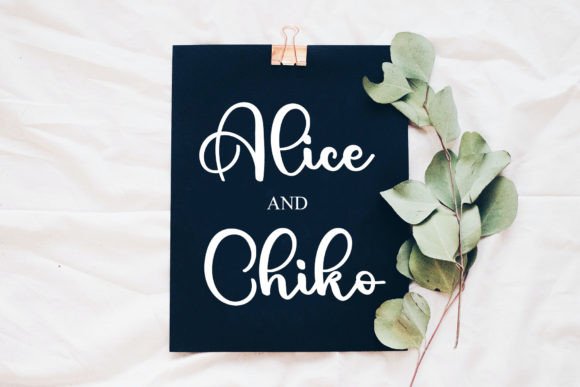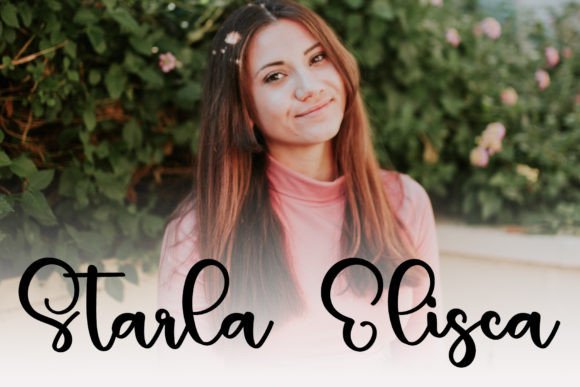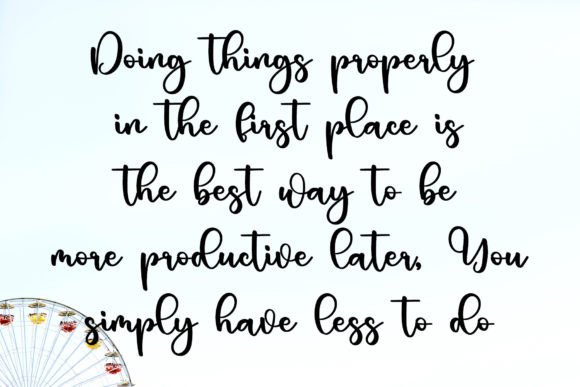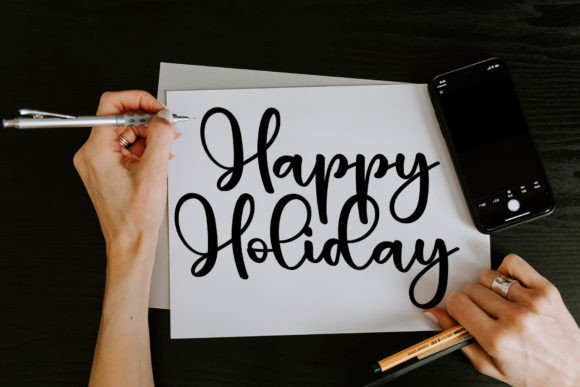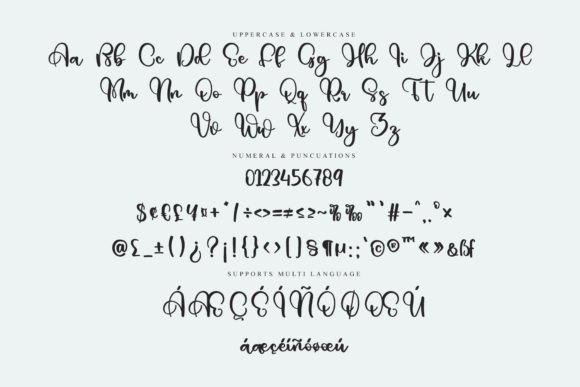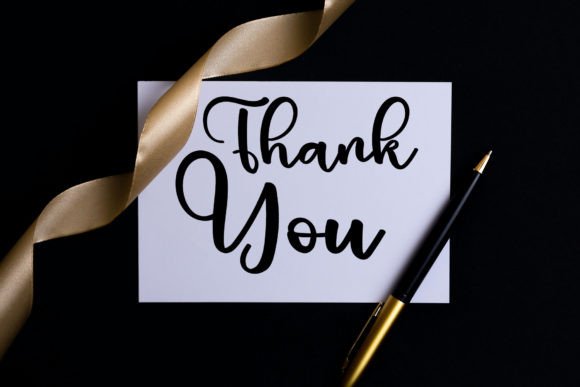
Introduction to Galentines Font
Have you ever been brainstorming a creative project, only to be stuck on the perfect font to bring your vision to life? It’s a feeling we’ve all been there, scrolling through font libraries, searching for that one special something that makes our design pop. For designers, the right font can be the difference between a good project and a great one.
Enter the Galentines Font, a modern and friendly handwritten font that’s sure to become your new go-to design resource. With its neatly crafted and highly detailed design, this font is perfect for adding a touch of personality to your creations. Whether you’re working on a project with a transparent background or need a high-quality font to elevate your design, the Galentines Font is a valuable asset to have in your library.
Key Features of Galentines Font
- High-quality design resource ideal for creative projects, including invitations, cards, and other print materials.
- Unique, hand-drawn style with a touch of femininity, perfect for Galentines Day celebrations and other female-focused events.
Honest Review: Galentines Font
As a designer, I’m always on the lookout for high-quality design resources to elevate my creative projects. The Galentines Font has been a recent addition to my toolkit, and I’m excited to share my honest review.
What works well: ✨ The Galentines Font is a beautiful, cursive script font that’s perfect for adding a touch of femininity to your designs. It’s incredibly versatile and works well for a variety of applications, from wedding invitations to social media graphics.
Limitations: ⚠️ While the Galentines Font is generally high quality, I did notice some issues with the spacing between letters. This can make it a bit tricky to use for longer blocks of text.
Overall, I’m impressed with the Galentines Font and would definitely recommend it to fellow designers. Its unique style and free download make it a valuable addition to any design resource collection.
- High-quality design suitable for various creative projects
- May require adjustments for longer blocks of text
Common Use Cases and Tips
The Galentines Font is ideal for creative projects, such as social media graphics, blog posts, and marketing materials. To get the most out of it, experiment with different font combinations, use the transparent background feature, and play with font sizes and colors.